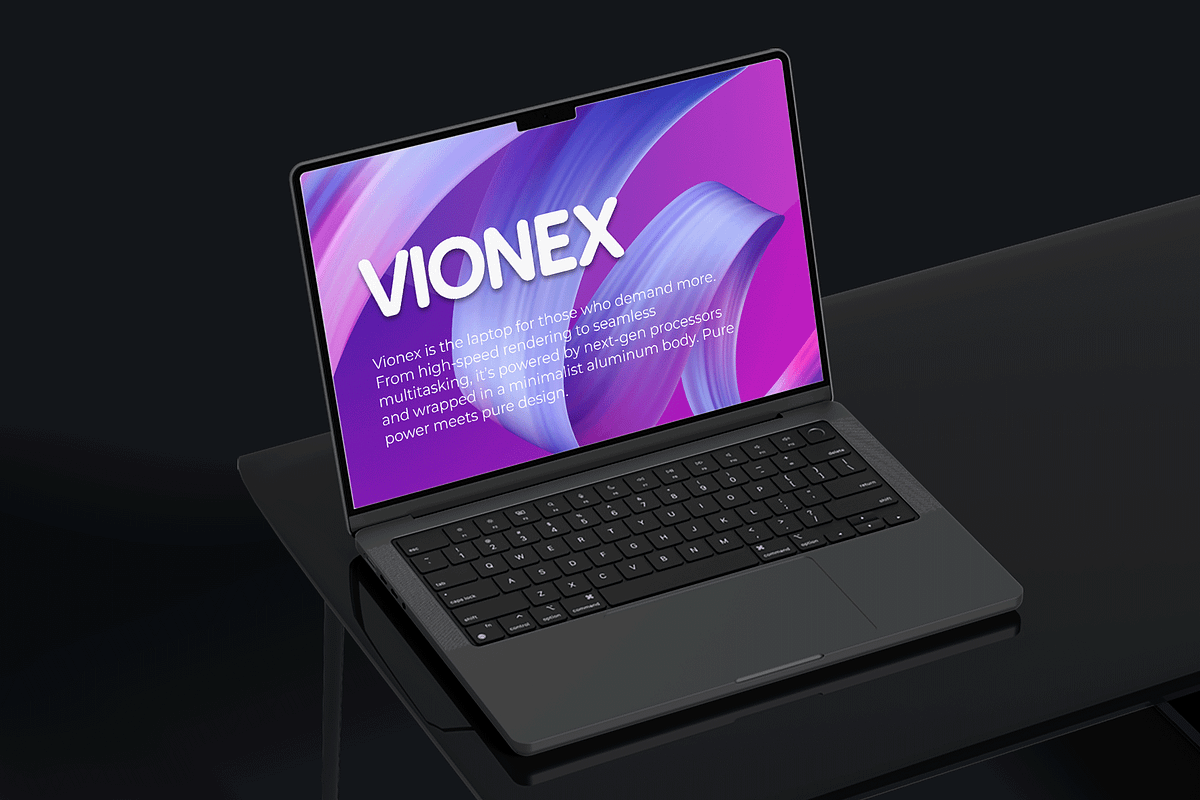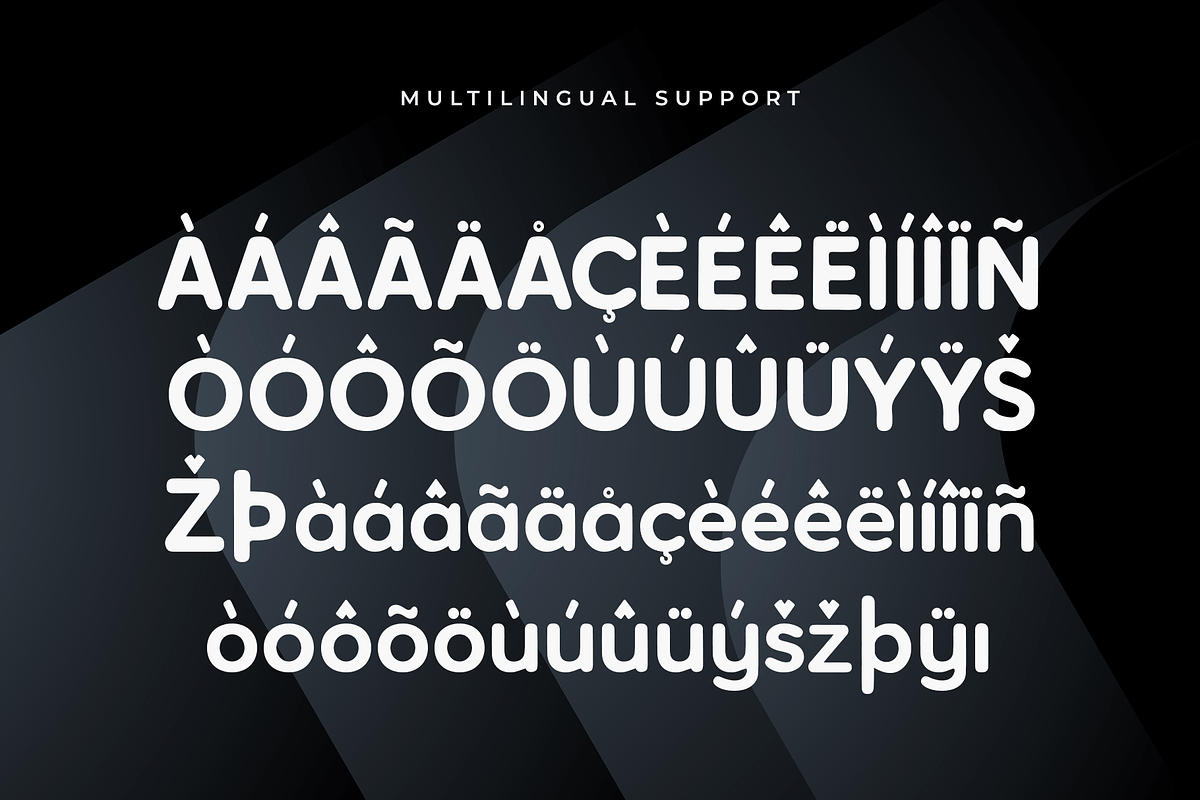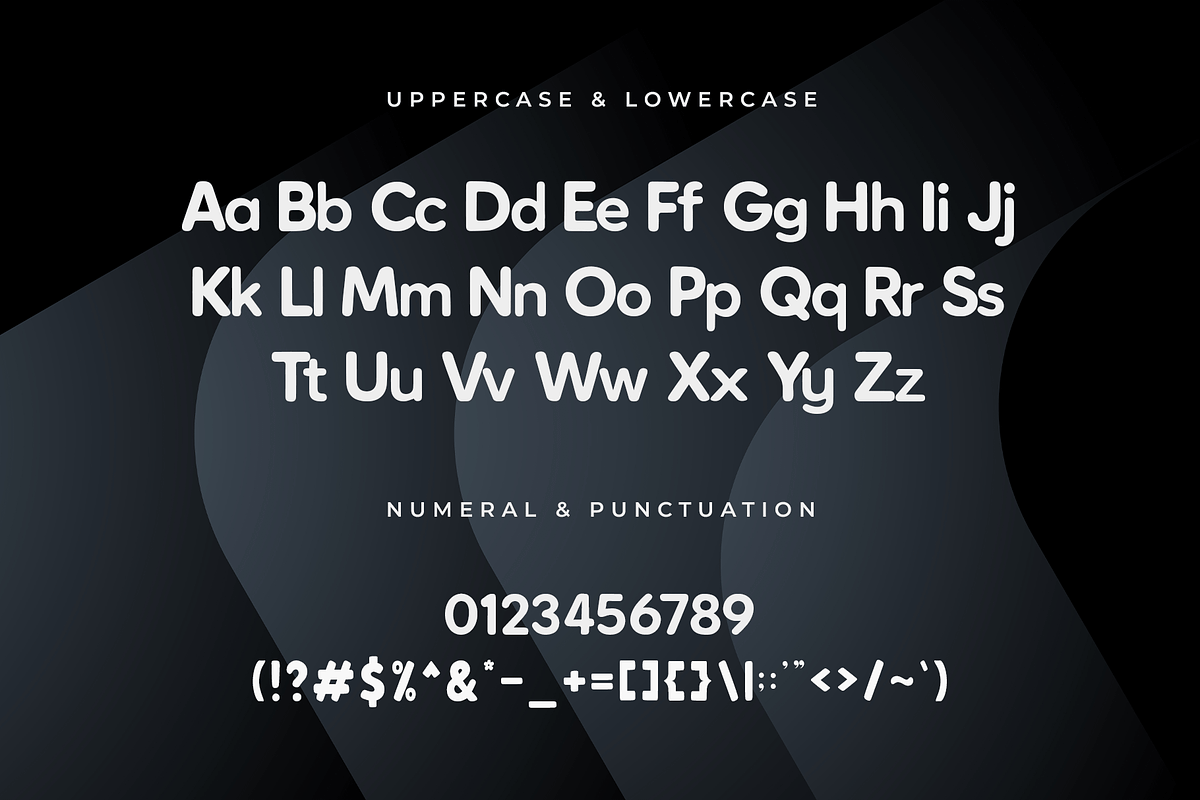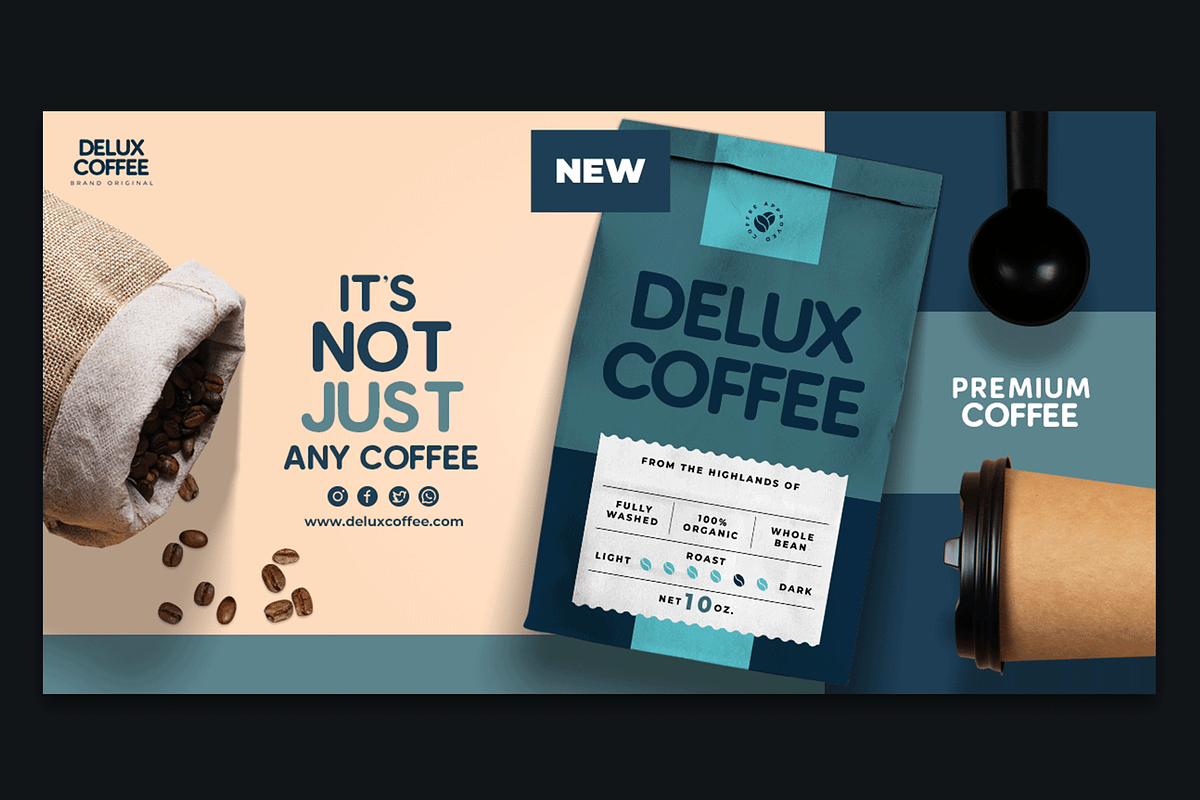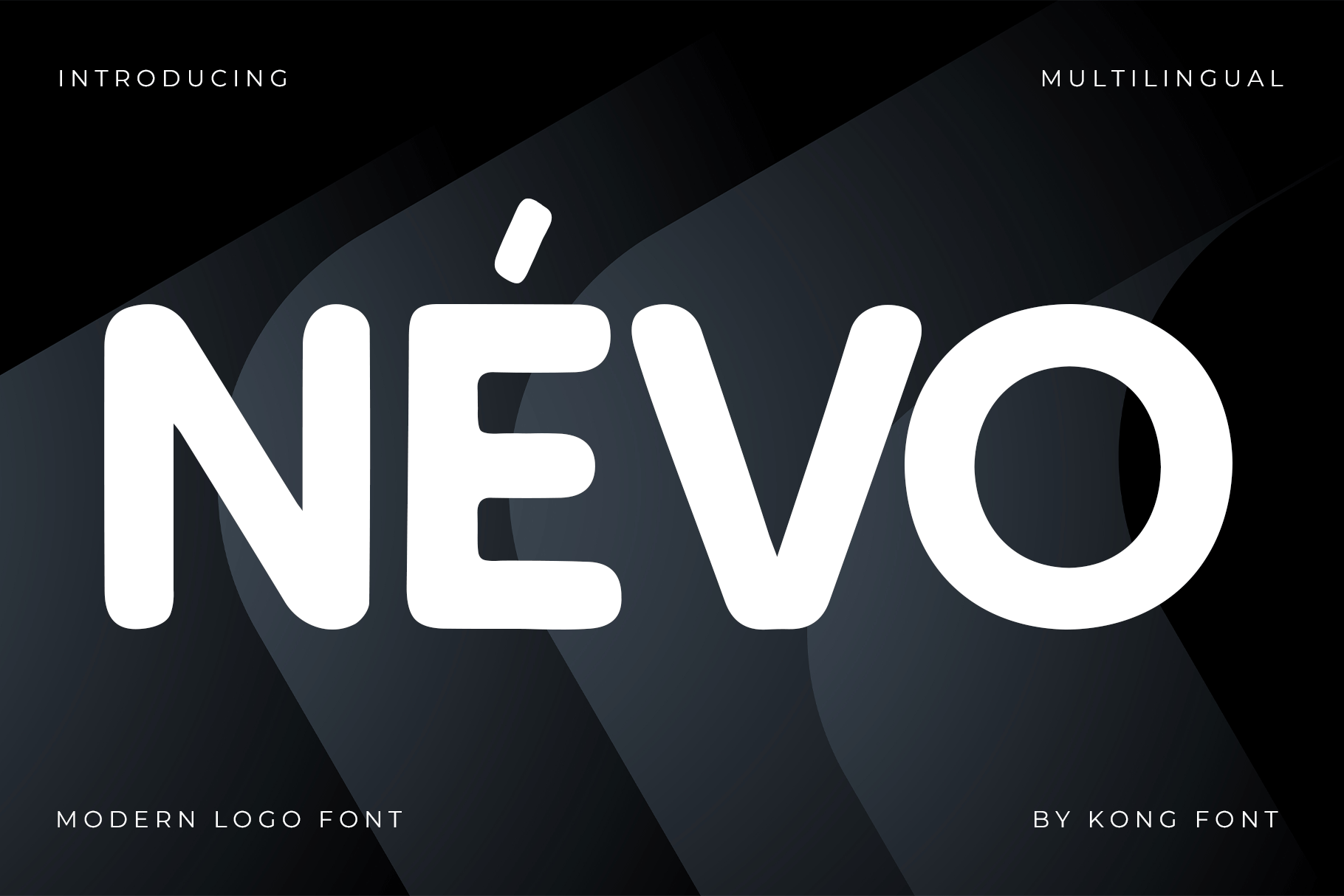
Nevo – Modern Logo Typeface
Nevo is a modern logo typeface created to deliver bold clarity and a stylish minimalist look. With its clean geometry, smooth curves, and contemporary aesthetic, Nevo is the ideal font for designers looking to craft standout branding with a futuristic yet professional feel.
Perfectly suited for logos, headlines, packaging, posters, and digital interfaces, Nevo brings elegance and strength to every project. Each letterform is thoughtfully designed to ensure maximum legibility while maintaining a distinct personality.
The font includes uppercase characters, numerals, punctuation, and multilingual support—making it versatile across a range of creative applications.
Whether you're building a brand identity, designing sleek web layouts, or crafting high-end product packaging, Nevo ensures your design communicates with clarity and modern style.